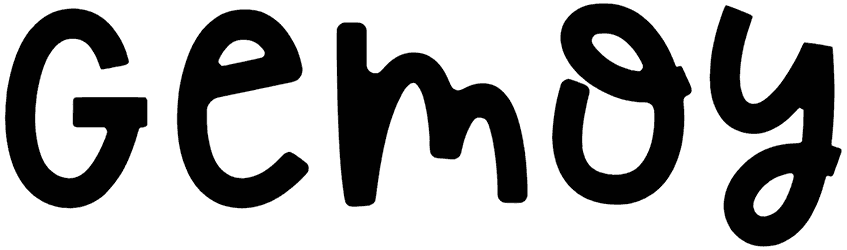
Gemoy Font
To garnish your typography face as much as possible with a playful design to induce cool and joyful emotions, call on a cartoon font. With handmade design and curly lettering in a happy tune, rise to come a long way.